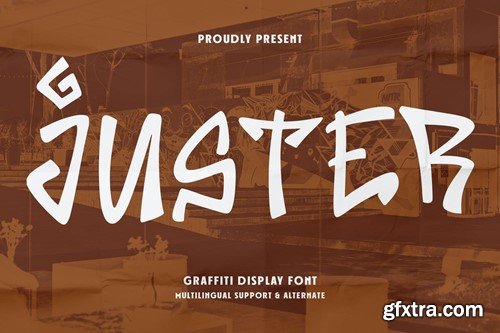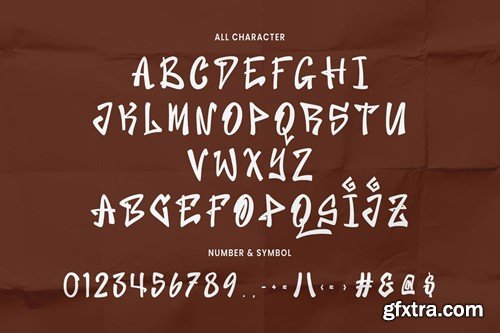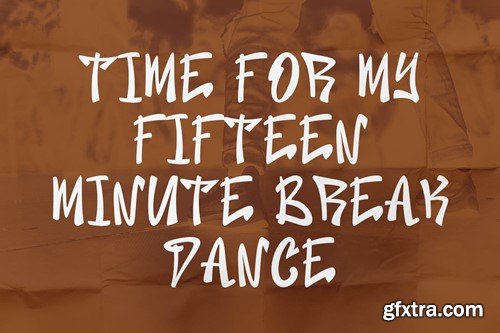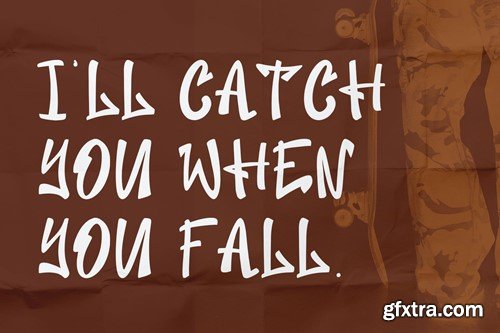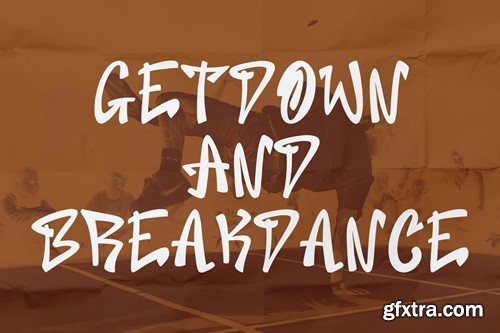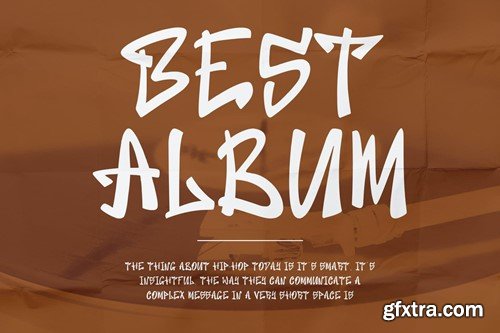
Juster Graffiti Display Font
Juster graffiti display font, fun character with a bit of ligatures and alternates. To give you an extra creative work. Juster graffiti display font support multilingual more than 100+ language. This font is good for logo design, Social media, Movie Titles, Books Titles, a short text even a long text letter and good for your secondary text font with script or serif. Make a stunning work with Juster graffiti display font. What you get: – Juster (OTF) – Juster (TTF) – Juster (WOFF)